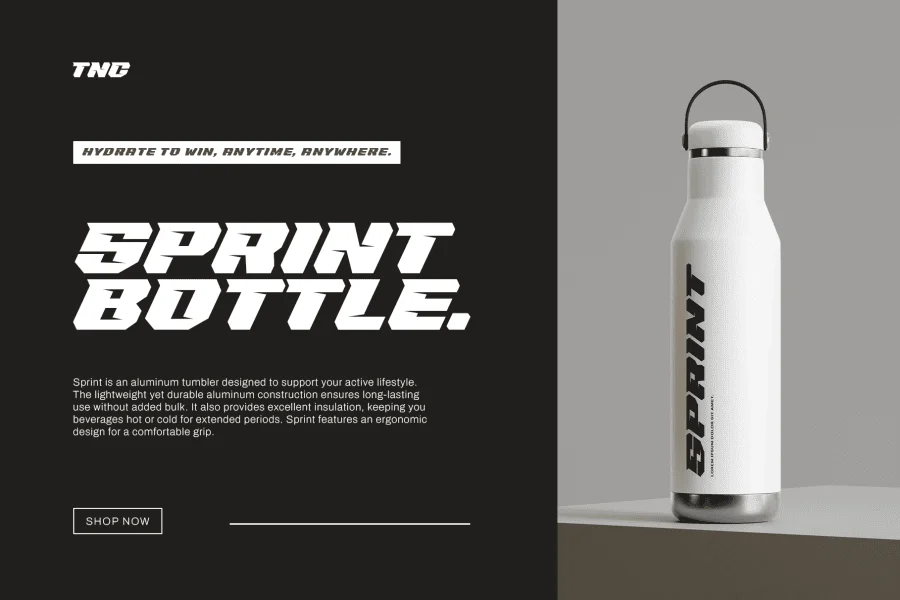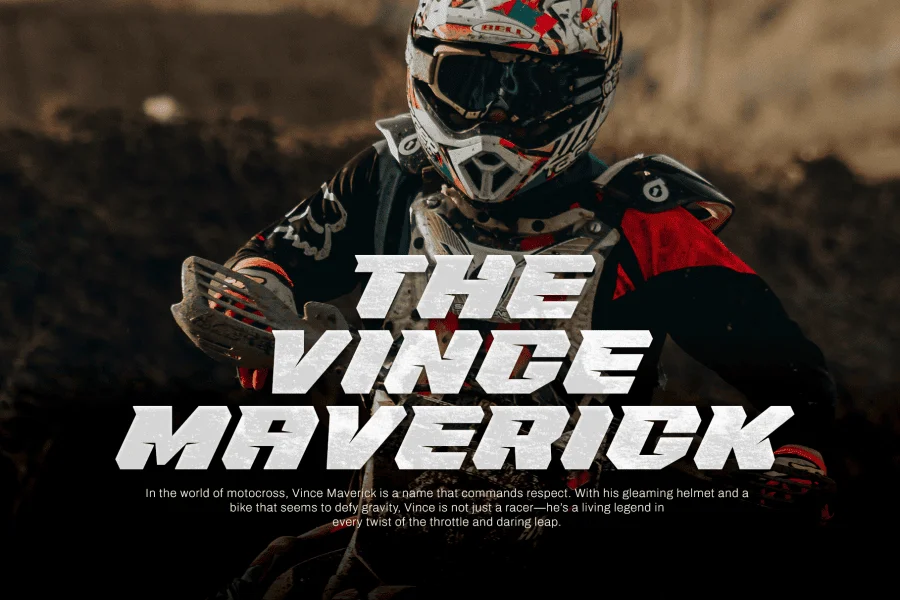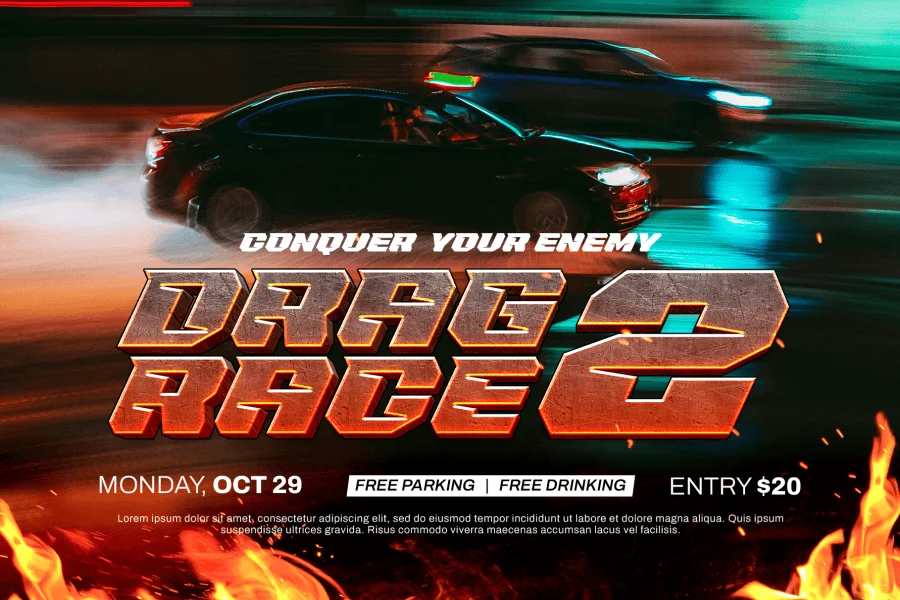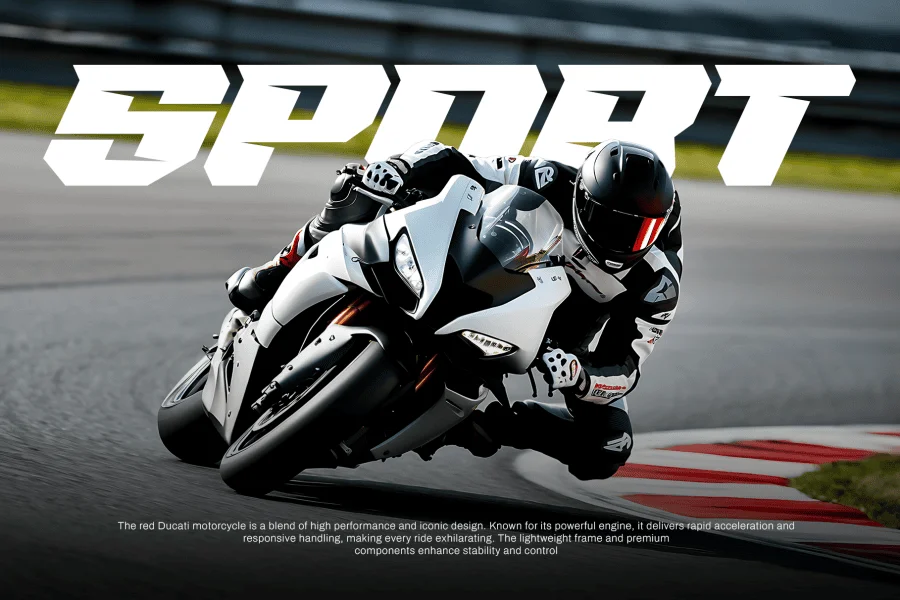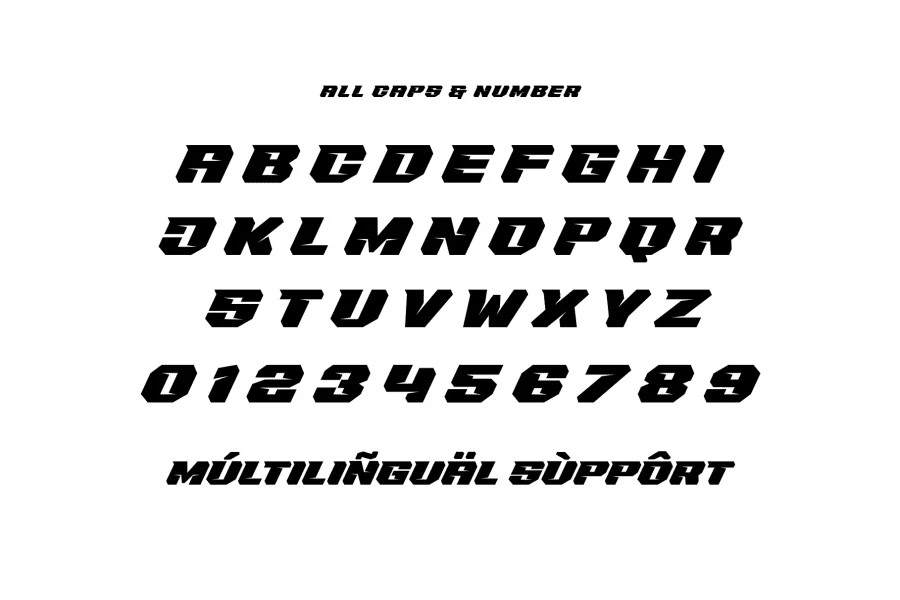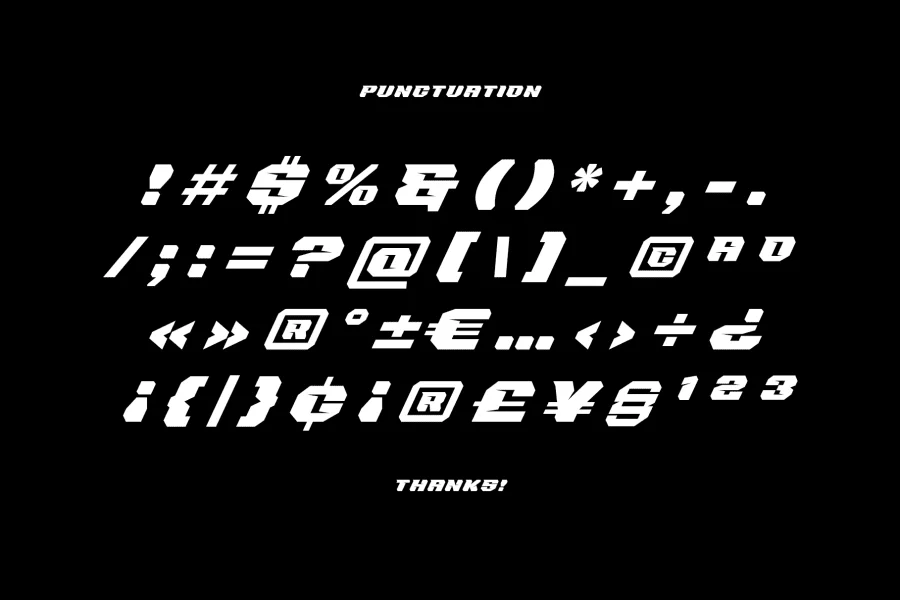
Crows Driven Font is a powerful and dynamic typeface designed for speed and adrenaline-fueled designs. This font features an all-caps character set, along with numbers and punctuation, providing a bold and consistent look. With multilingual support, Crows Driven is perfect for a variety of design projects that require a strong, sporty feel.